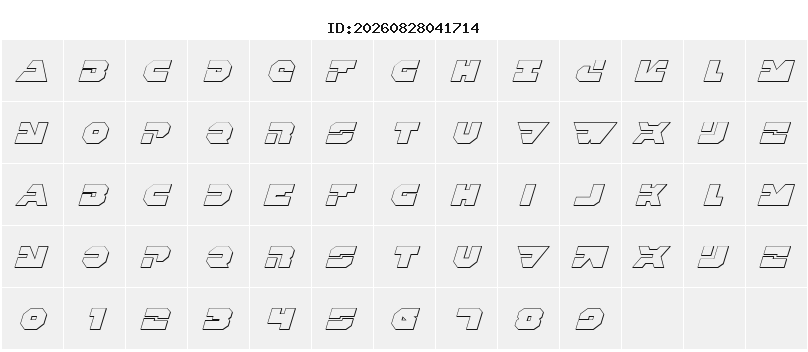
Trigger Man 3D Italic Preview
• Font Name: Trigger Man 3D Italic
• Full Font Name: Trigger Man 3D Italic
About Trigger Man 3D Italic.ttf
Trigger Man 3D Italic.ttf is a modern, elegant sans-serif font designed for ultimate readability and visual harmony. Perfect for branding, headlines, web design, and print materials.